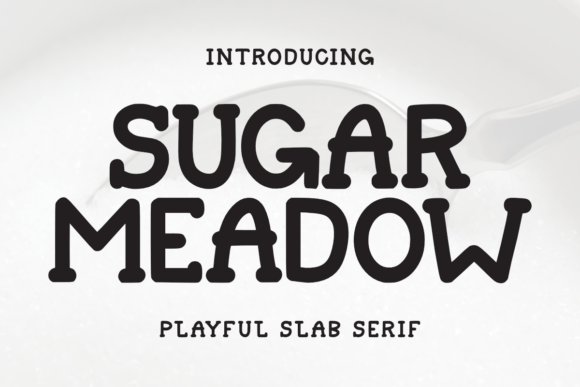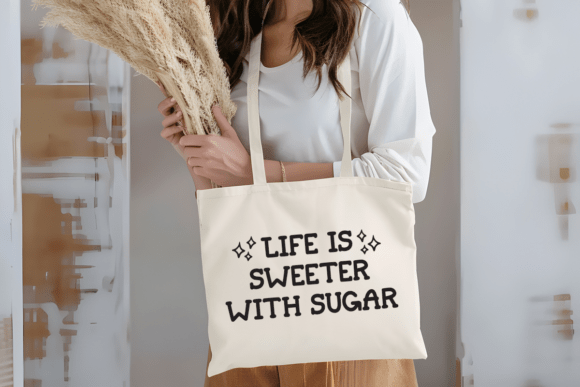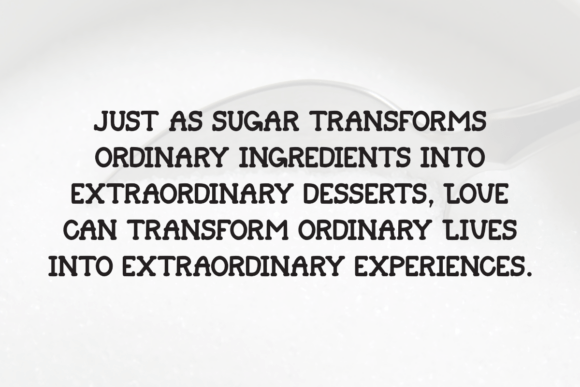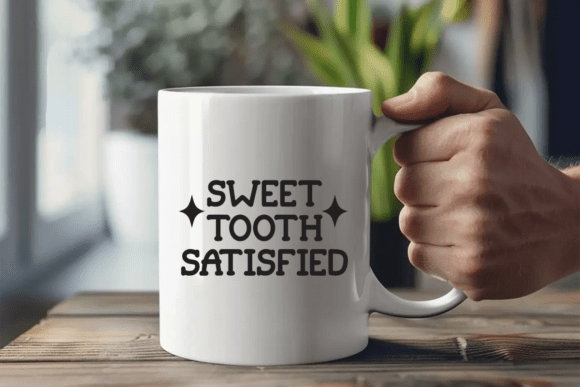
Sugar Meadow Font: A Cute Slab Serif for Playful Branding & DIY
About the Sugar Meadow Font
Unleash your creativity with Sugar Meadow Font, a versatile font perfect for a wide range of applications. Sugar Meadow is a sweet and soft slab serif font with a quirky personality. Its rounded serifs and playful shapes create a delightful balance between fun and professionalism. Great for food-related branding, boutique packaging, or joyful editorial design.
Sugar Meadow Font Usage Examples
Sugar Meadow Font Example